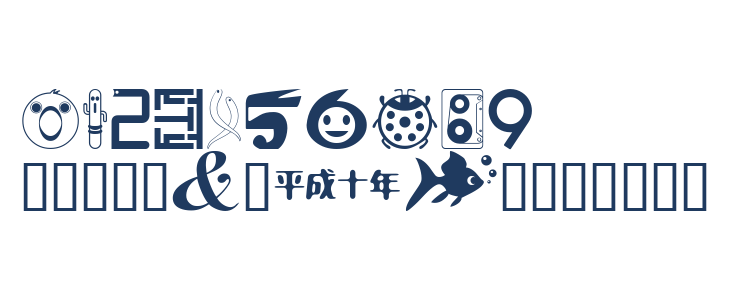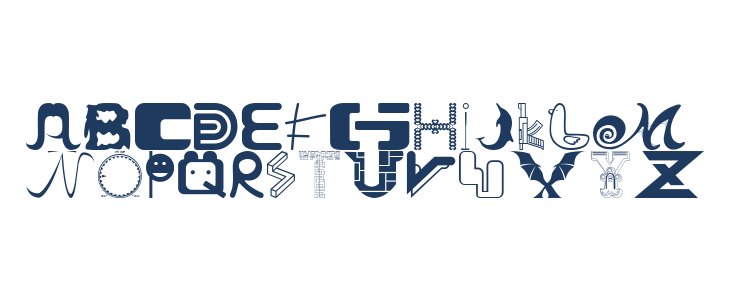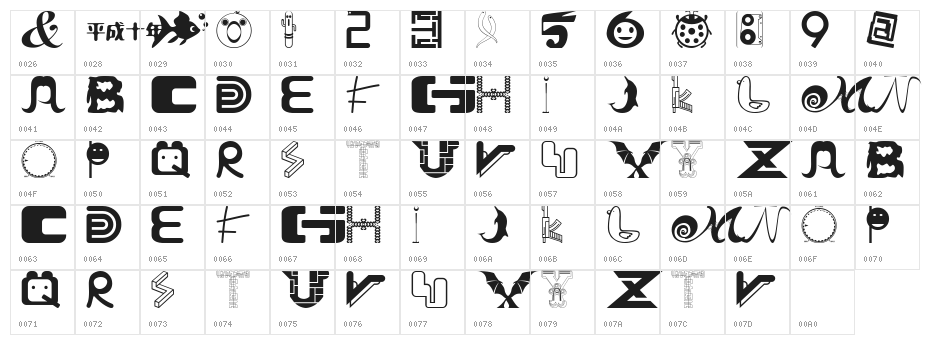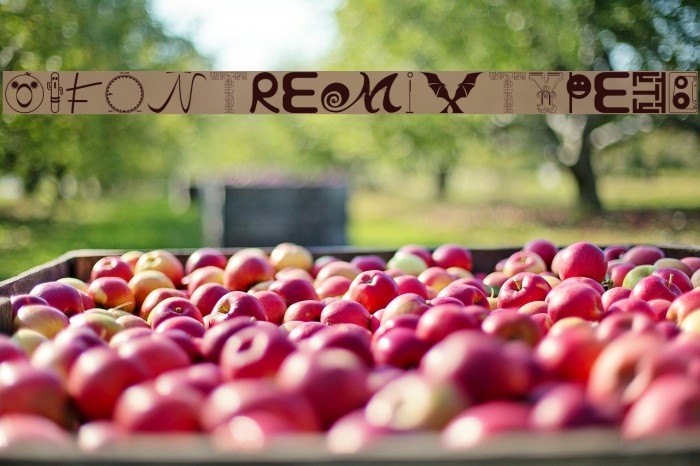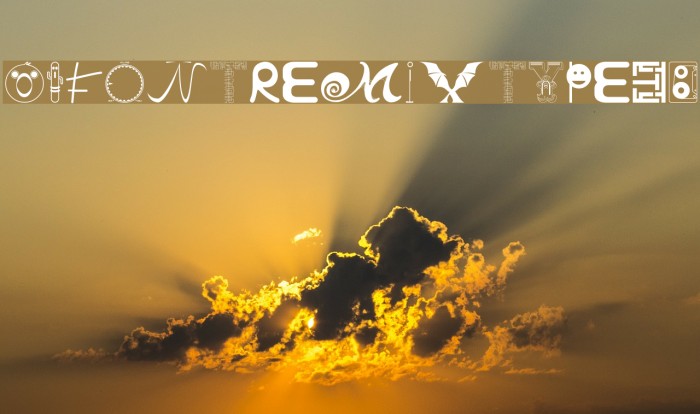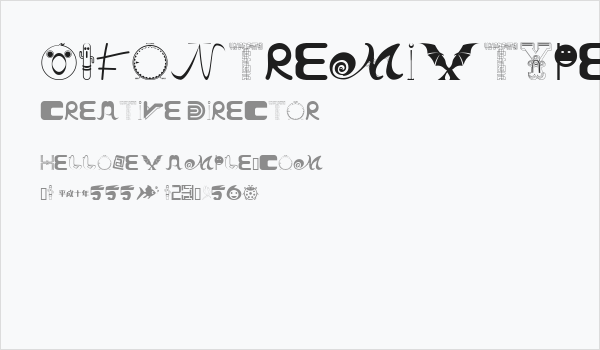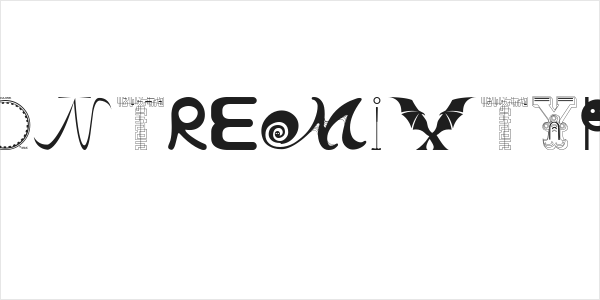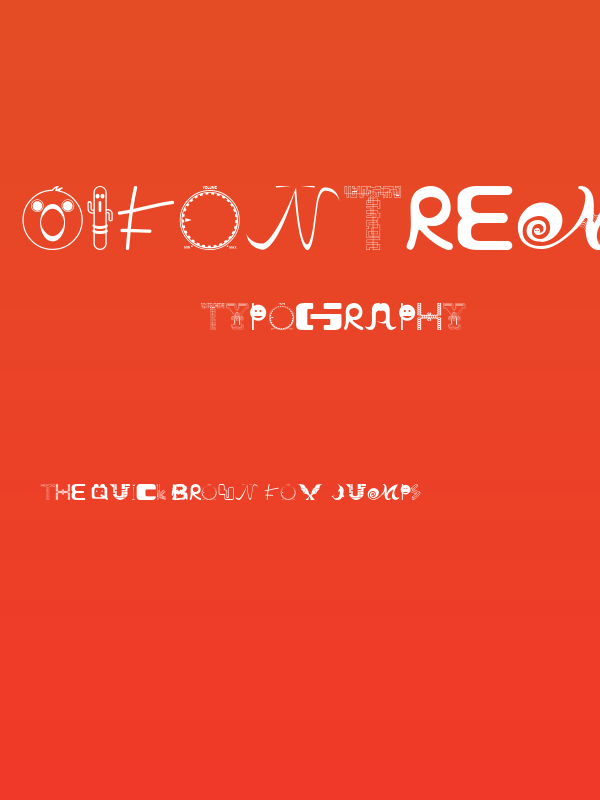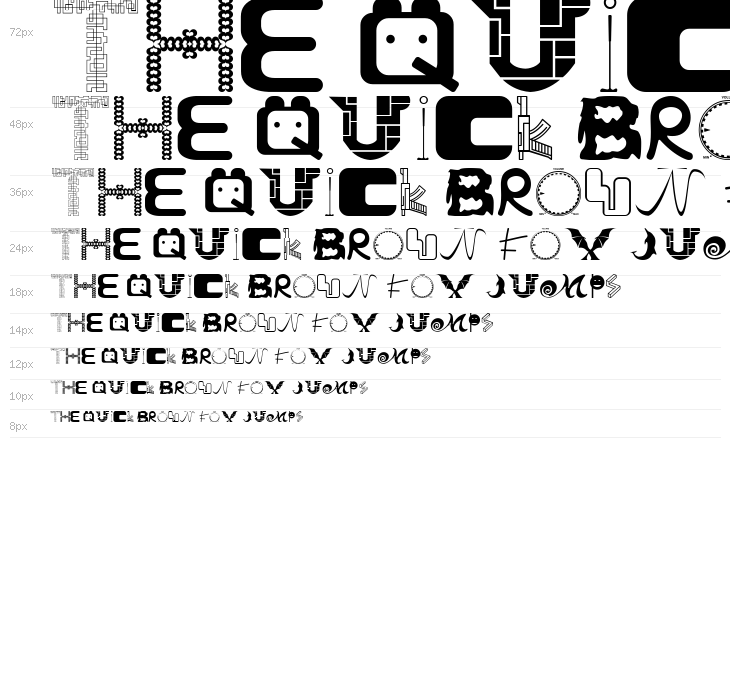
01FontremixType38 Font
01FontremixType38 Description
This font is a highly creative and eclectic display typeface, featuring a diverse range of styles within each character. Each letter and number is uniquely designed with playful and artistic elements, incorporating various motifs such as geometric shapes, abstract forms, and whimsical illustrations. The font showcases a mix of bold and intricate details, making it visually striking and ideal for artistic projects. The characters are not uniform, offering a dynamic and varied visual experience that captures attention and sparks curiosity.
| Proposed Projects | Ideal for artistic projects, posters, album covers, and any design requiring a bold, unique visual impact. |